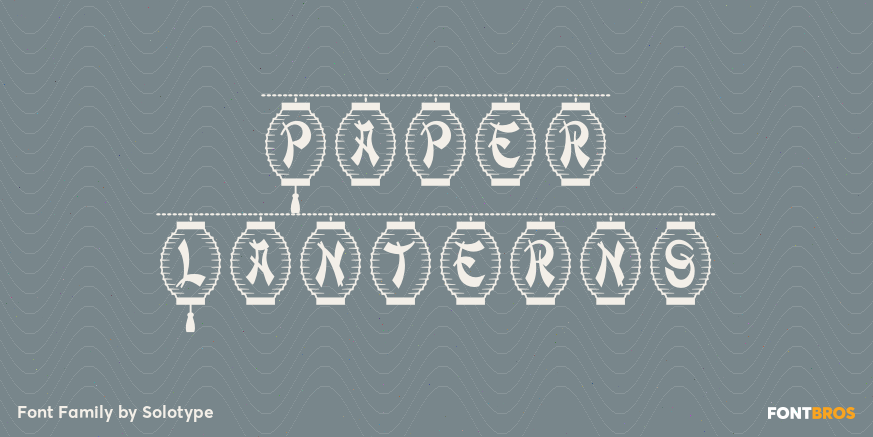
Paper Lanterns
About Paper Lanterns
At the very least, you\’ll need this for the Chinese New Year celebration. This was designed in the year of the monkey, and includes all the usual accents for Western European languages. Caps have tassels, lowercase have no tassels.